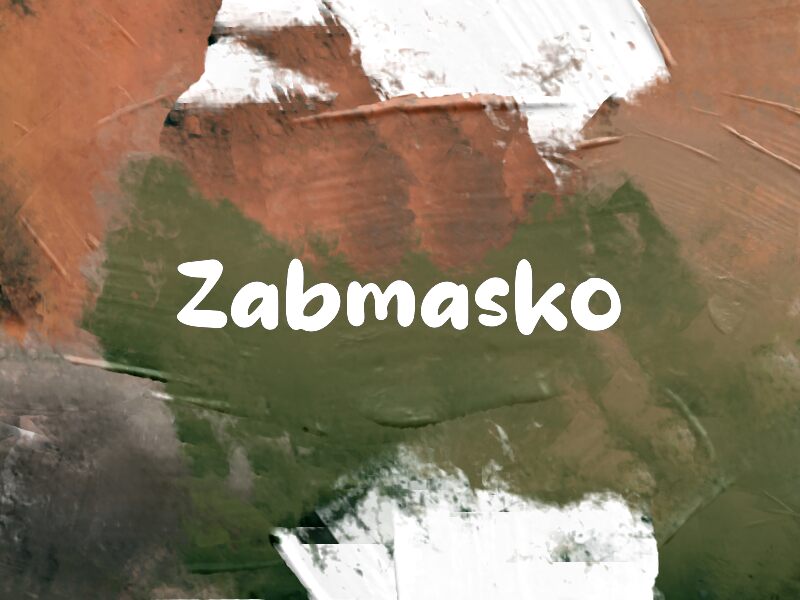
Zabmasko
Zabmasko font by Wahyu Eka Prasetya of wep is a free comic font that feels like thick marker ink—bold, bouncy, and unapologetically chunky. Its rounded, squishy forms and uneven rhythm keep things playful without turning messy, so your words stay loud and readable even at a glance.
Using Zabmasko works beautifully for kids’ posters, cartoon titles, YouTube thumbnails, sticker packs, snack packaging, classroom handouts, and playful app screens. Set it a touch loose with extra letter spacing when you need breathing room, and pair this free font with a clean geometric sans (like a simple grotesk) for supporting text and captions.